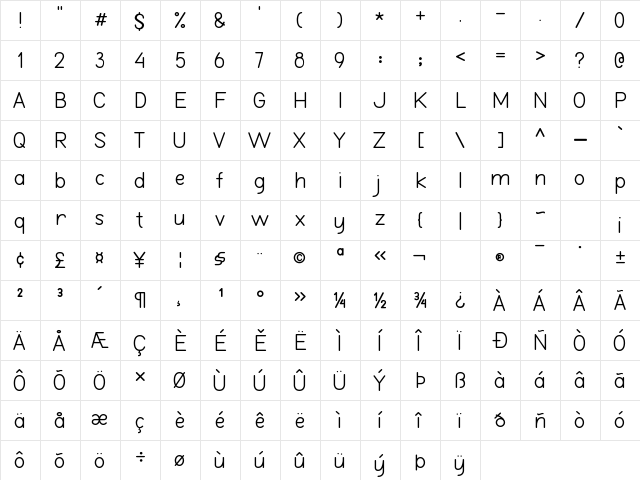
Burd Sans Regular
| Foundry | AndriyFM |
| Designer | Andri Firmansyah |
Design Context for Burd Sans Typeface
Burd Sans is a composed and adaptable typeface that performs quietly and consistently across a wide range of design contexts.